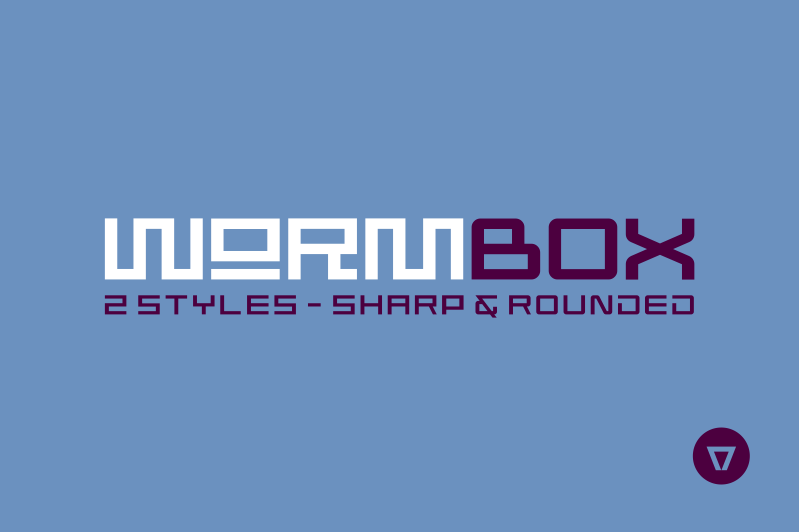
Font name: | Wormbox |
Author: | NimaVisual |
Note by NimaVisual | |
Wormbox is a fixed height modular font. Play with uppercase and lowercase to create unique wordmarks and titles. Commercial License available here: http://crtv.mk/q0TD7 |